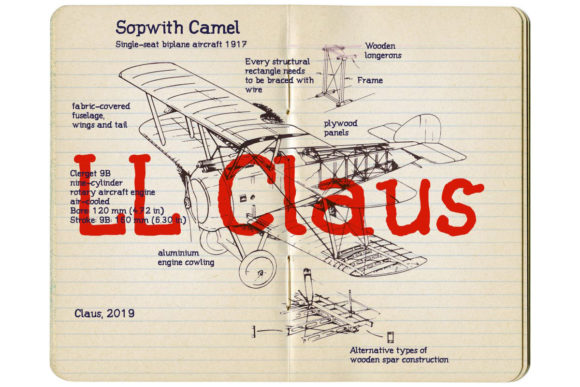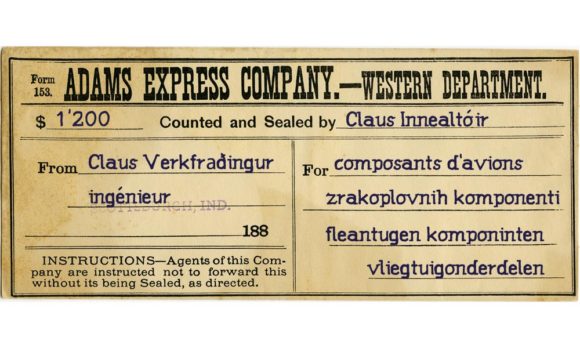
LL Claus Font
About LL Claus Font
LL Claus is a handwritten typeface, drawn off of the German engineer Claus who was supervising and improving aircraft assemblies.